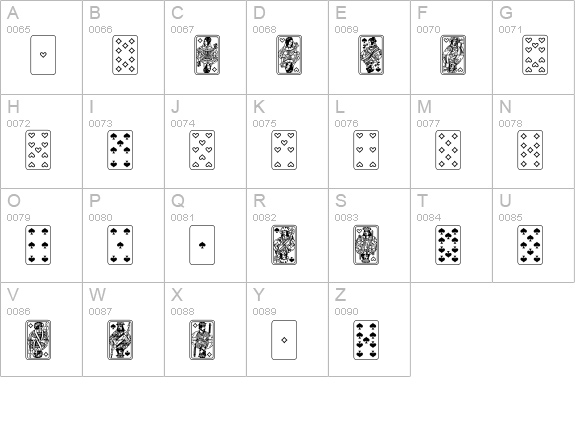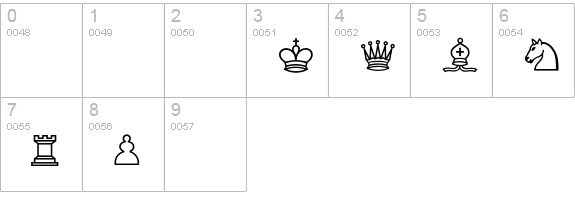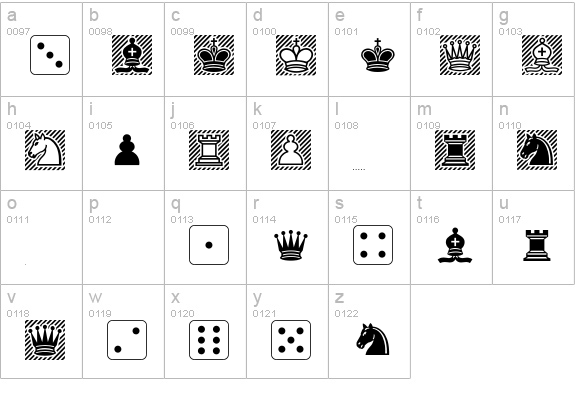
Commercial Pi 2 Font Details
Commercial Pi 2 is a modern and versatile font that exudes professionalism and sophistication. With its clean lines and sharp edges, this font is perfect for creating eye-catching designs for commercial purposes. Whether you are working on a branding project, advertising campaign, or creating promotional materials, Commercial Pi 2 is sure to make your text stand out. What sets Commercial Pi 2 apart is that it is available for free download at FontsMarket.com. This means that you can access this premium font without any cost, making it an excellent choice for designers and businesses looking to elevate their projects without breaking the bank. With its sleek and elegant design, Commercial Pi 2 is a must-have font for anyone looking to add a touch of sophistication to their work. Download it for free today and take your designs to the next level.